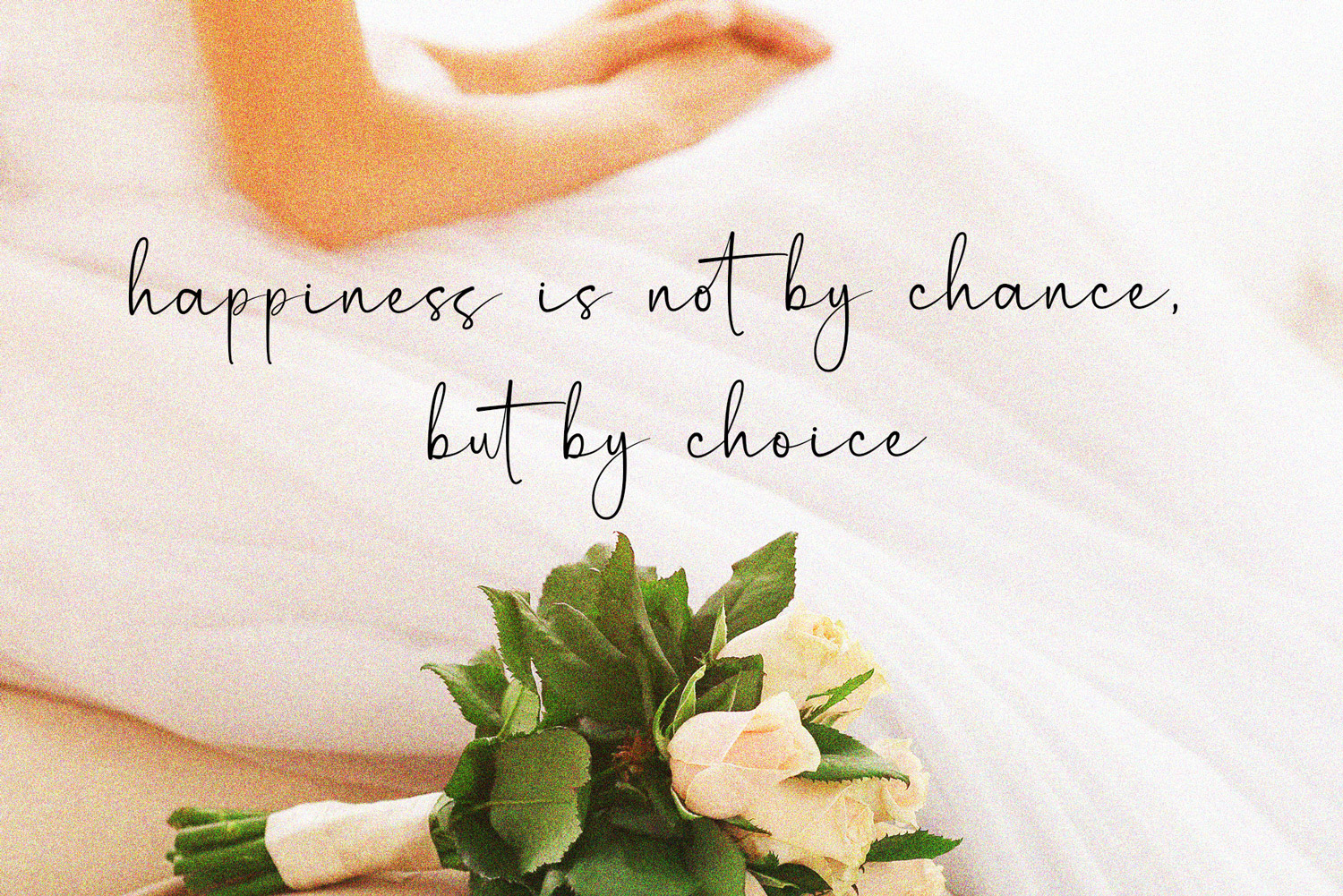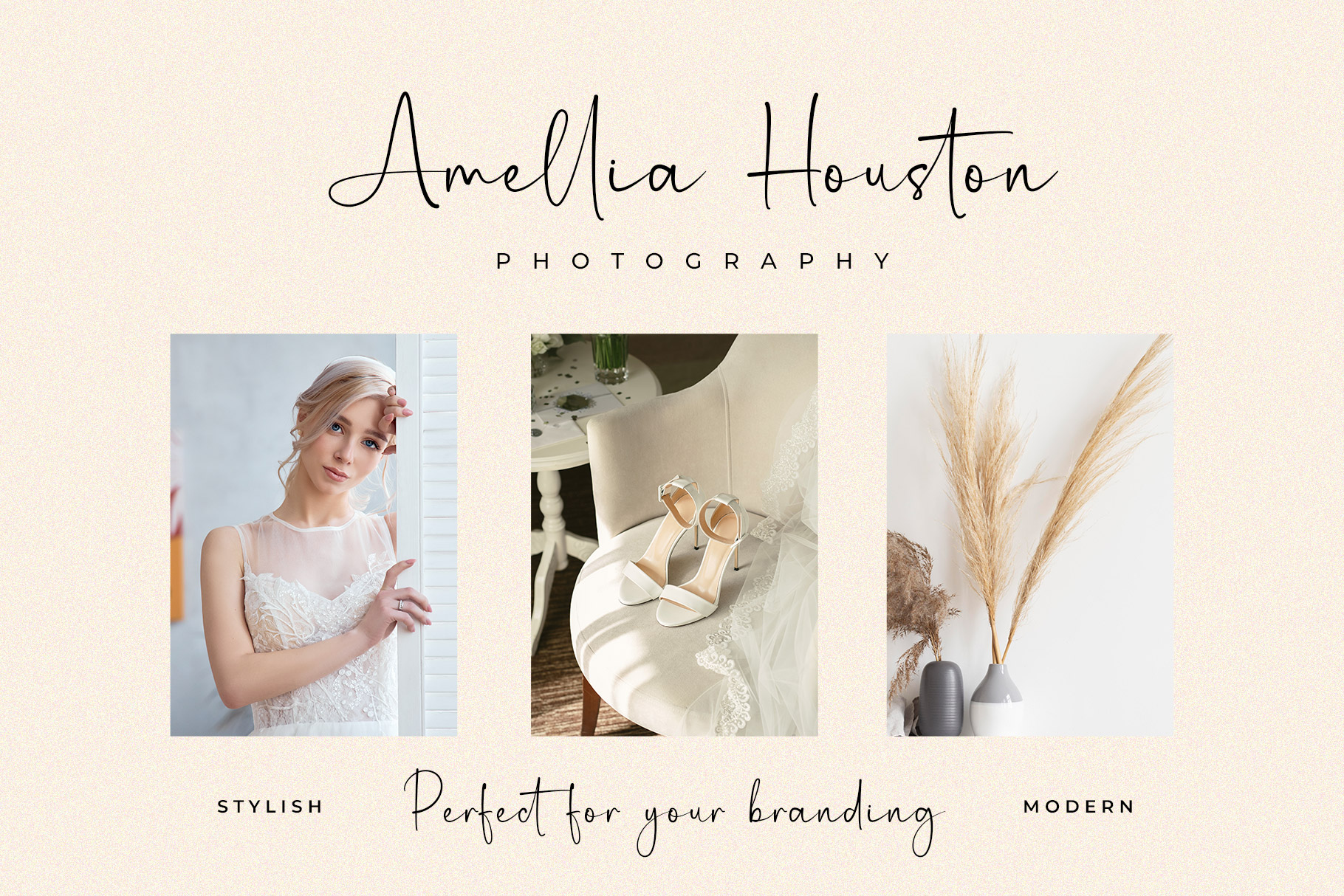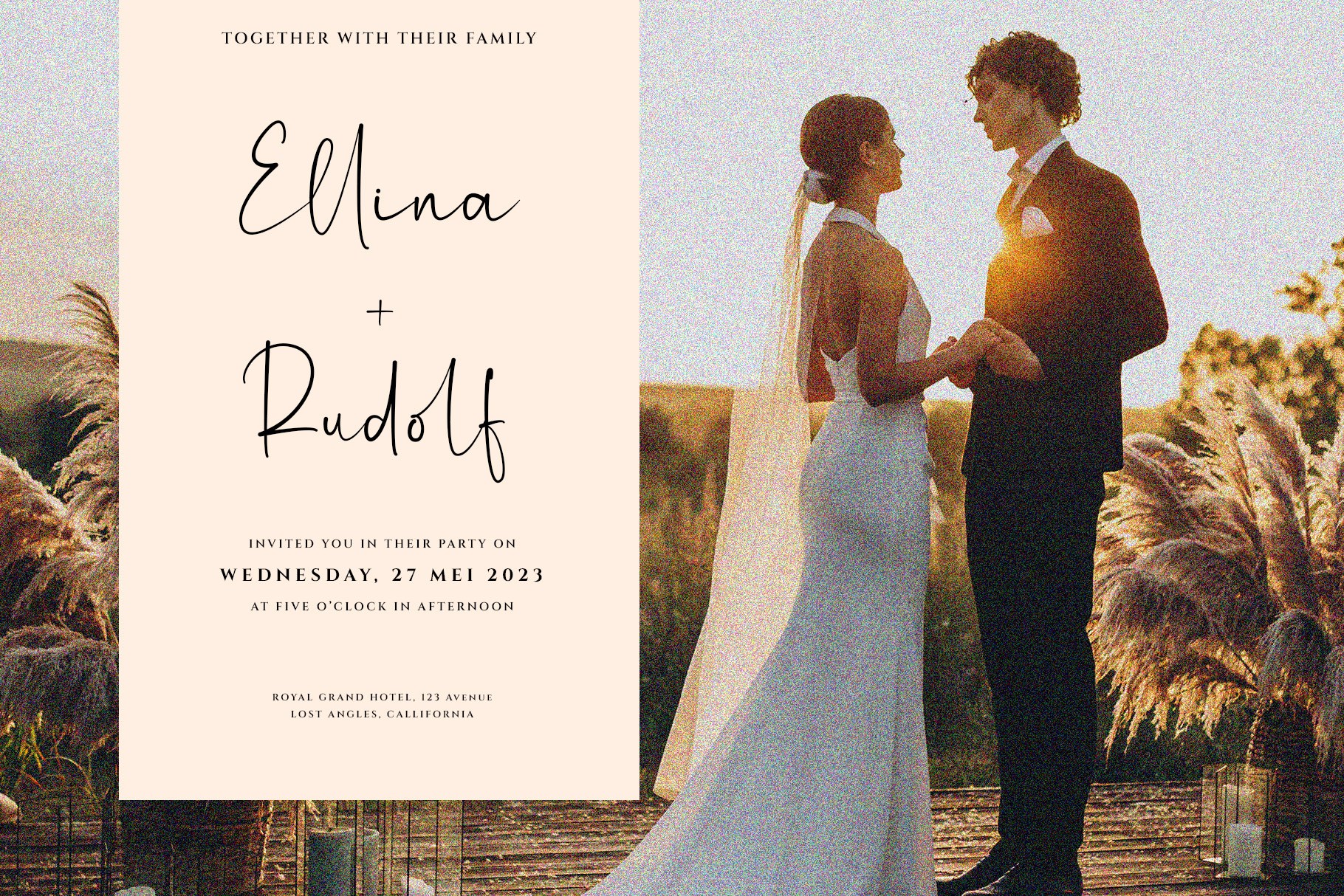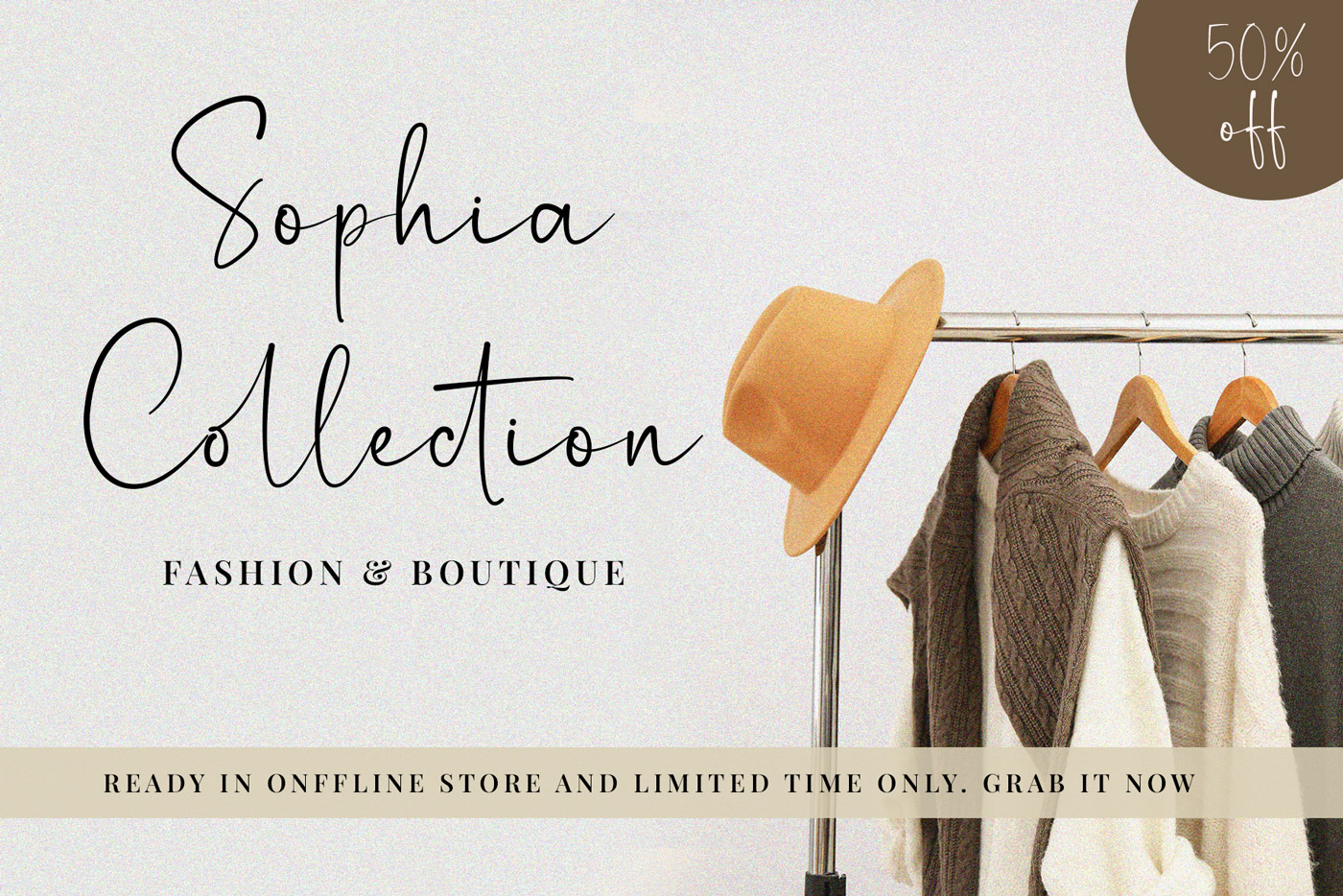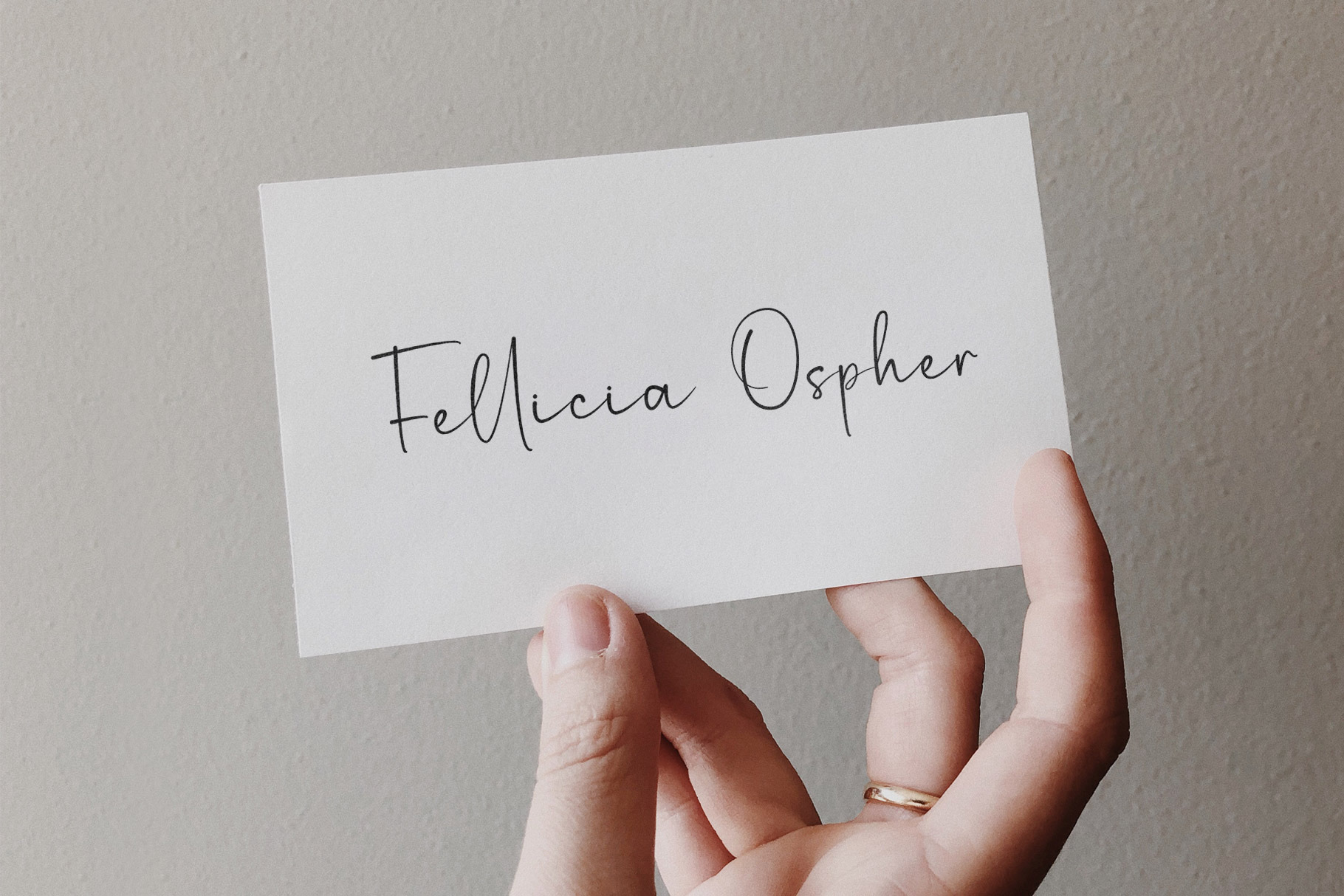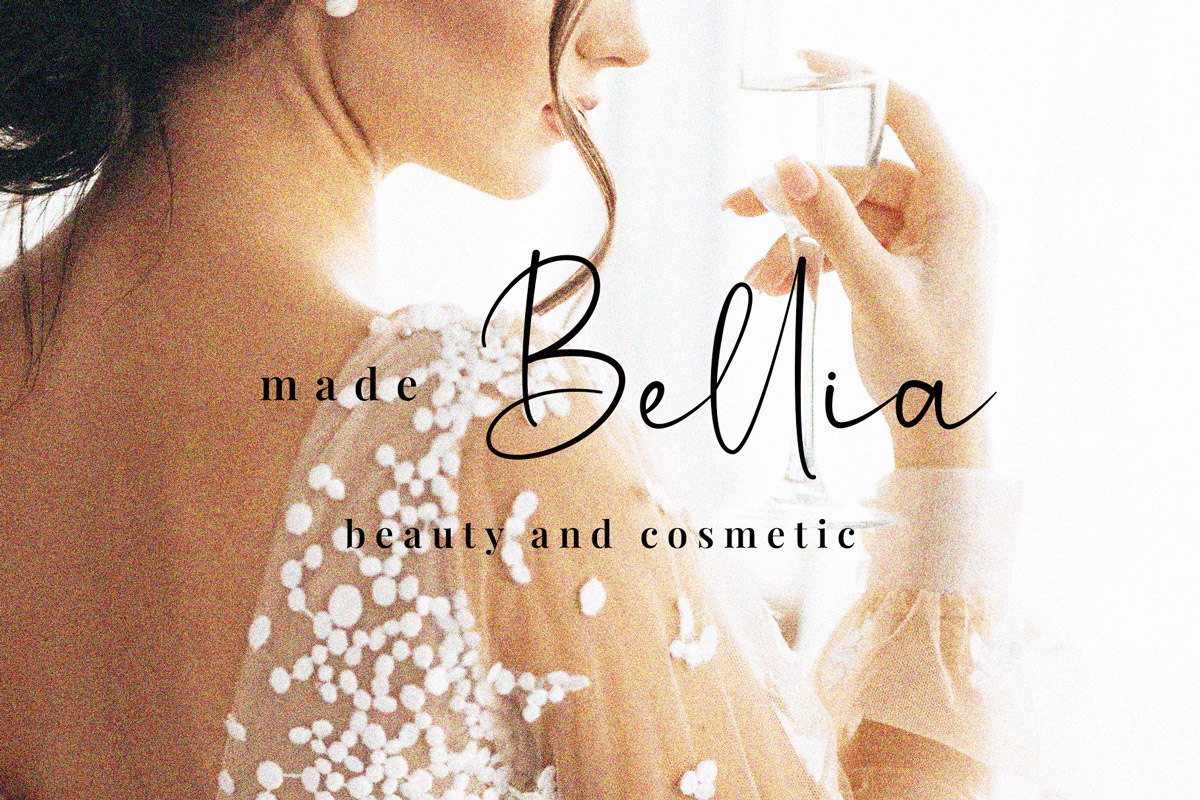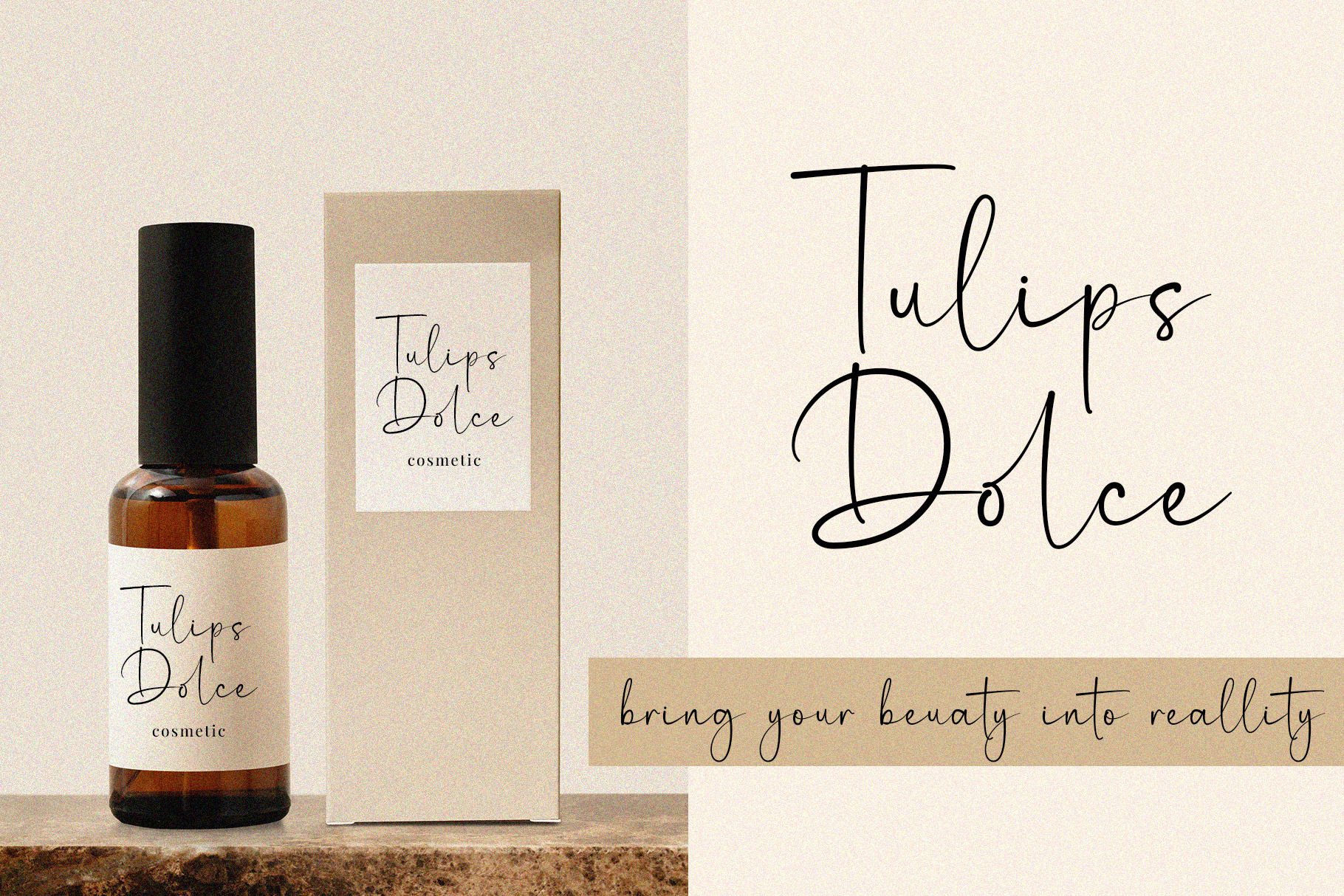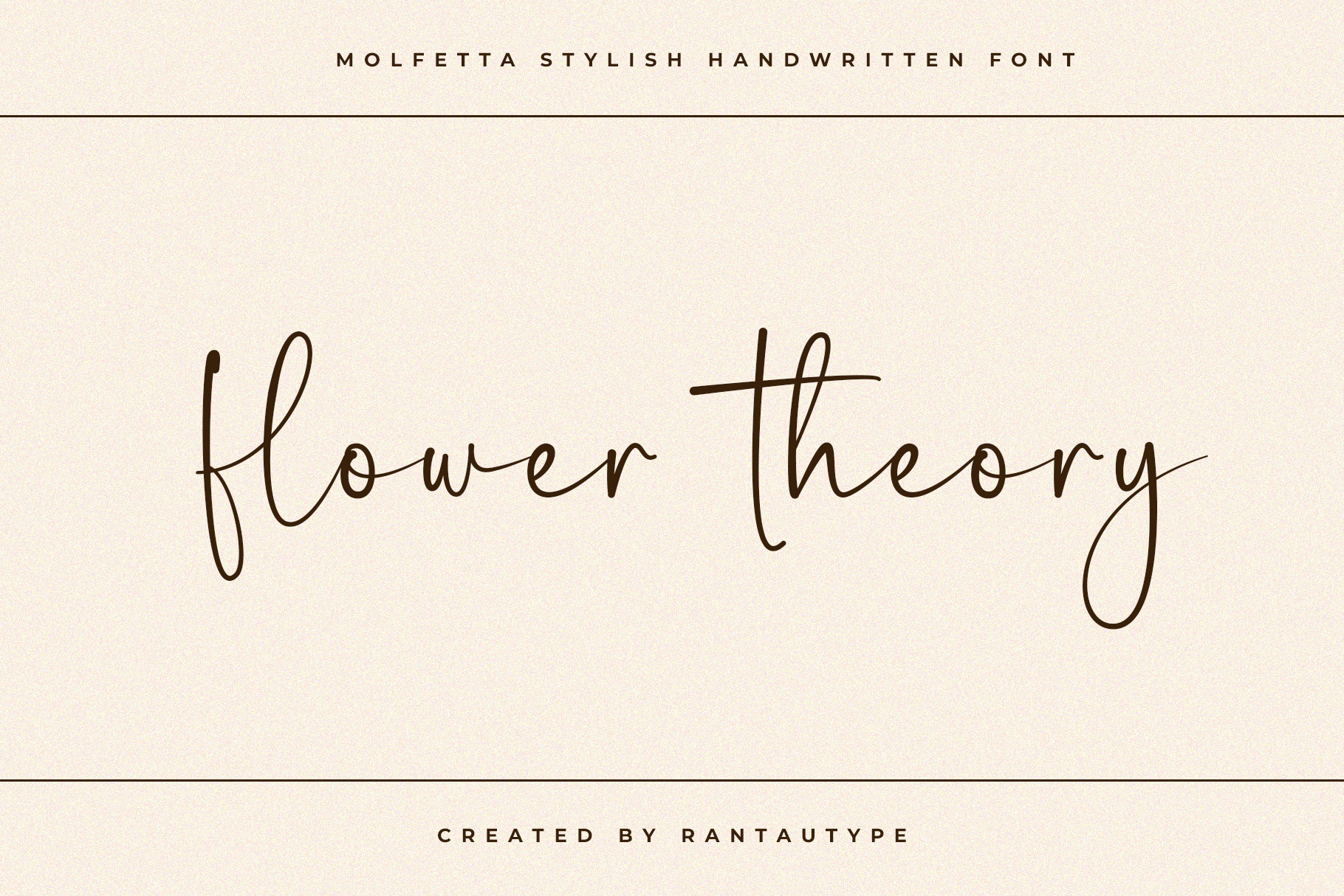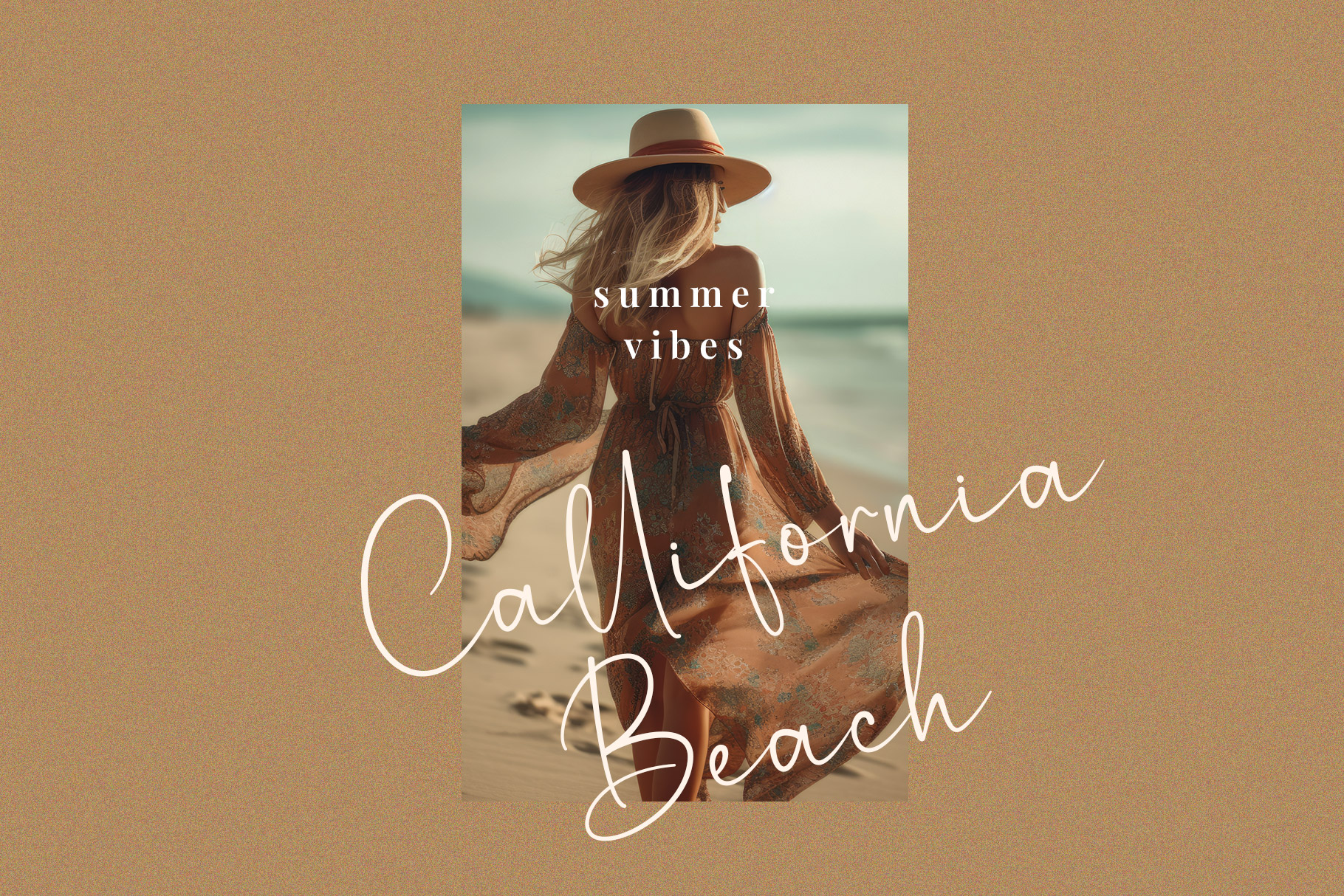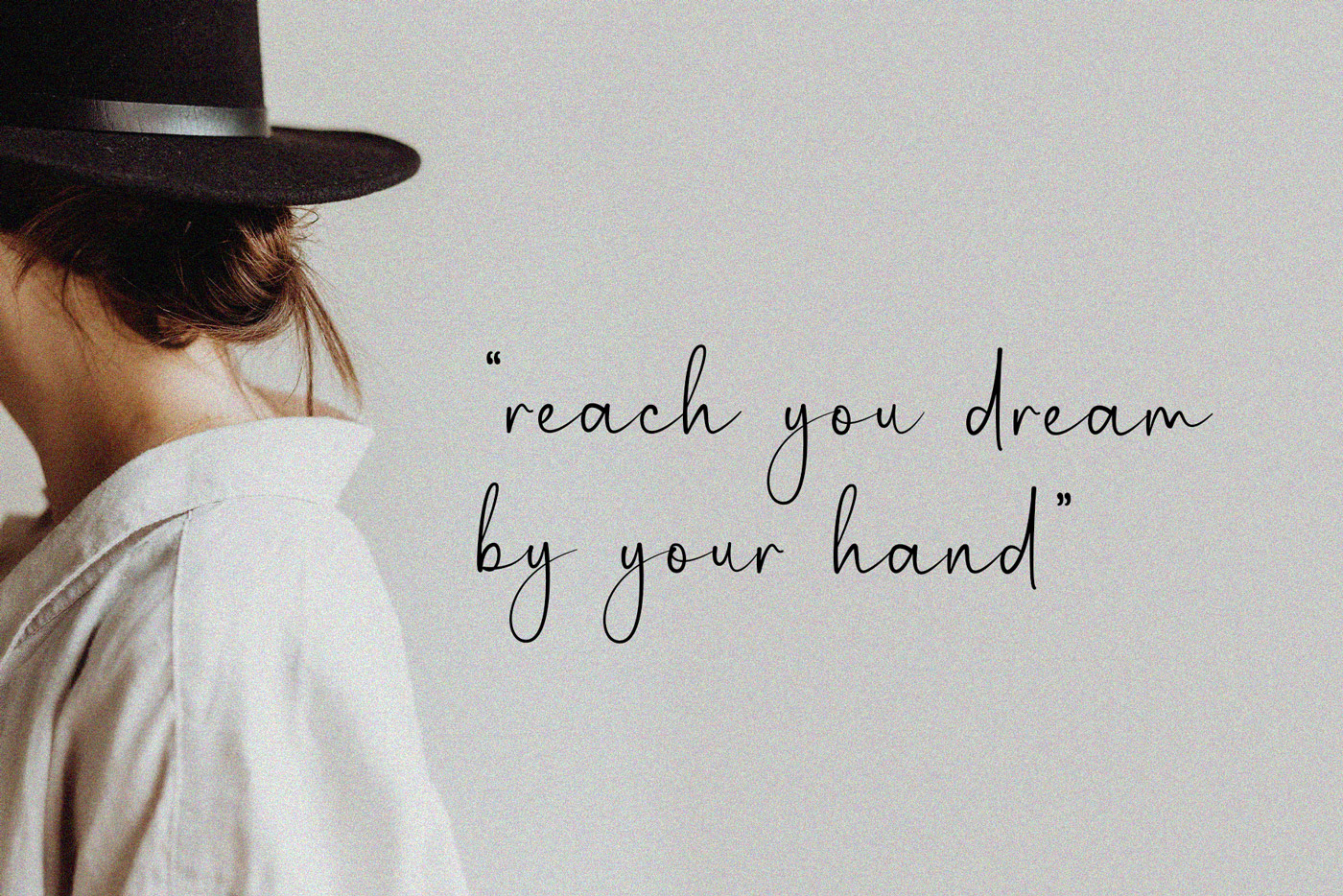
Molfetta Stylish Handwritten Font
Molfetta – is elegant style which can be interpreted professional. we keep this font looks elegant, luxury, premium, modern, readable, stylish, catchy and easy to.
Molfetta is the great choice for watermark on photography, signature or signature logo design, quotes, album cover, magazine, business card and many other design project. Molfetta  here to make your work to high level!!!
• Ligature and Alternate